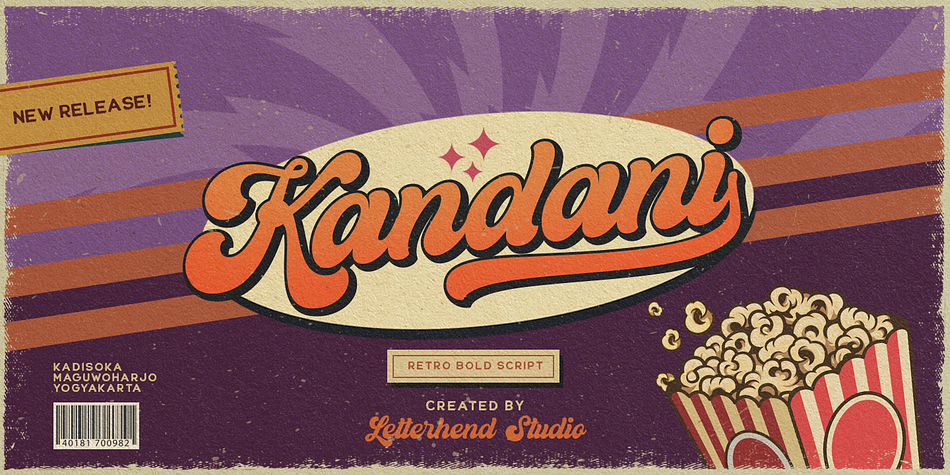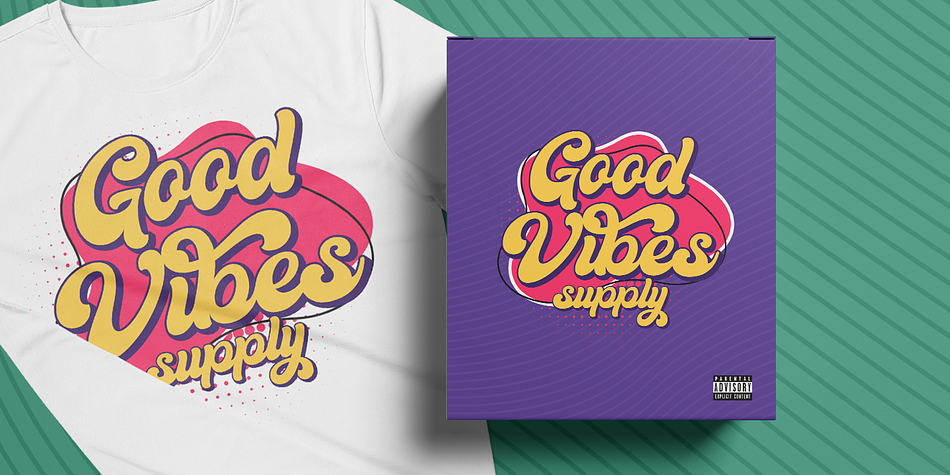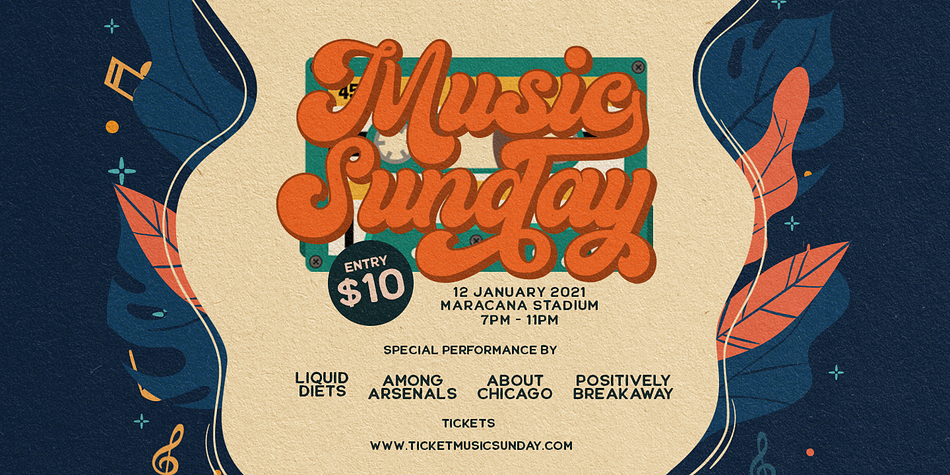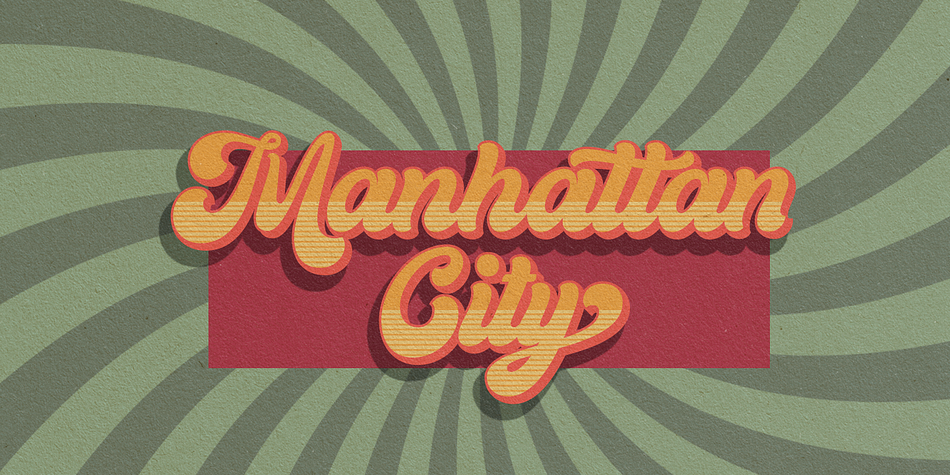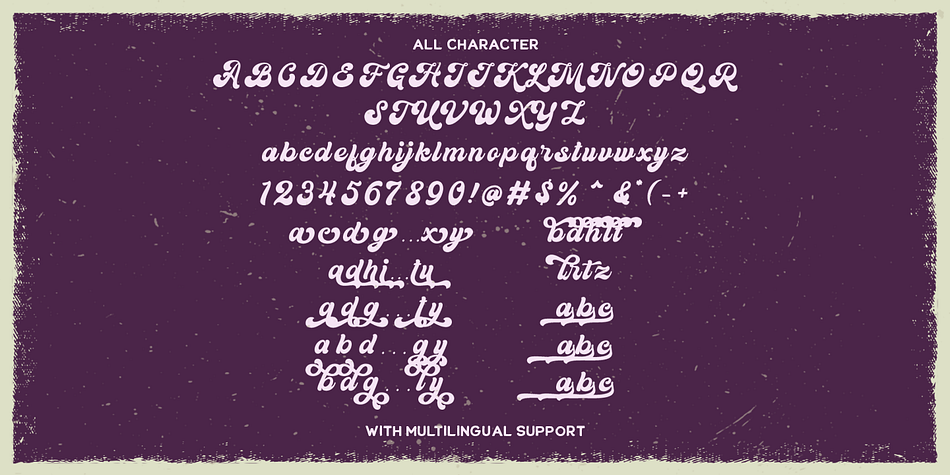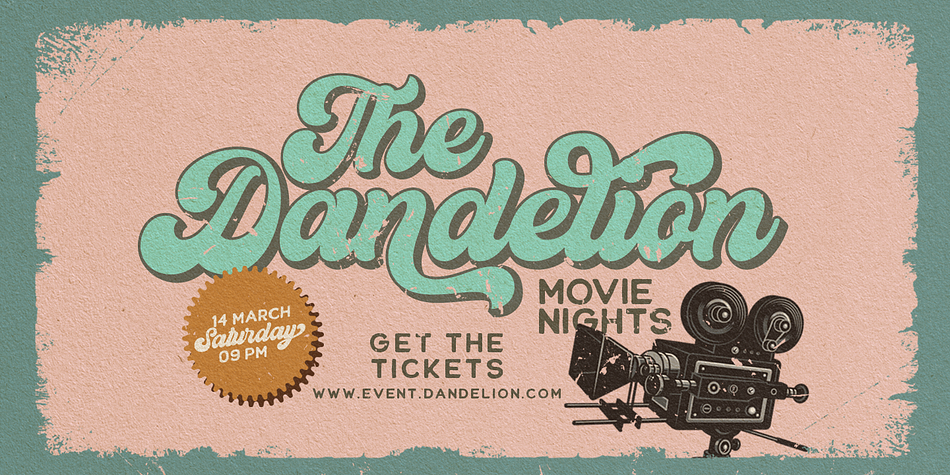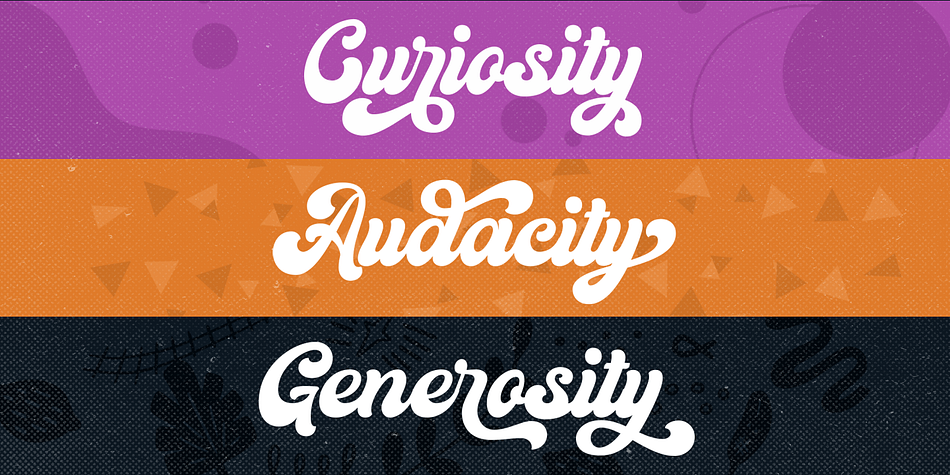
Designed by Hendry Juanda, Kandani is a retro and script font family. This typeface has two styles and was published by Letterhend Studio.
Introducing, Kandani. A retro bold script which will bring you back to 60s feel. This typeface has the extrude version so you can create your retro effect font in ease. This font perfectly made to be applied especially in logo, and the other various formal forms such as invitations, labels, logos, magazines, books, greeting / wedding cards, packaging, fashion, make up, stationery, novels, labels or any type of advertising purpose.
- ligatures
- alternates
- swashes